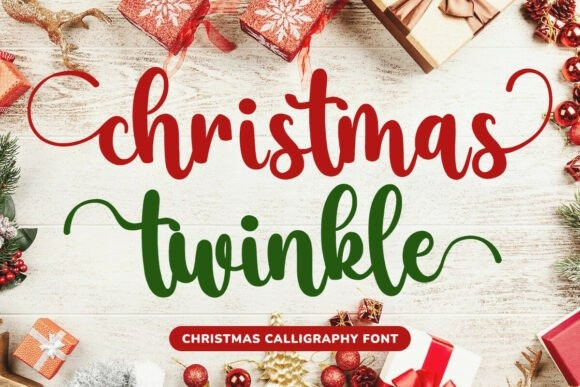
Christmas Twinkle Typeface is a charming script handwritten font designed to bring warmth, elegance, and festive cheer to your creative projects. Inspired by the magic of Christmas lights and handwritten holiday cards, this font features smooth, flowing lines and an inviting, natural feel that makes it perfect for both personal and professional designs. Whether you’re designing for Christmas, Thanksgiving, or any celebration in between, Christmas Twinkle adds a delightful, handmade touch.
What sets Christmas Twinkle apart is its beautifully crafted beginning and ending swash tails on every character. These ornamental flourishes add movement and grace, making your text stand out with a sense of personality and flair. The font includes a rich collection of alternate characters and decorative swashes, giving you endless creative flexibility for unique and customized lettering designs.
This versatile font is ideal for wedding invitations, birthday cards, Easter crafts, Cricut projects, embroidery designs, seasonal decor, and more. With its harmonious balance of elegance and playfulness, Christmas Twinkle works beautifully in spring, summer, autumn, and winter themes alike. It’s a wonderful choice for designers, crafters, and creatives looking to make their work truly shine.